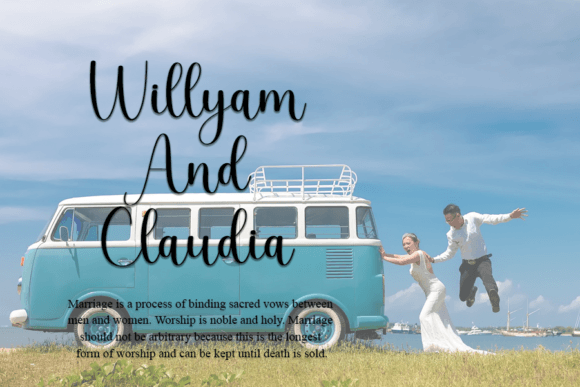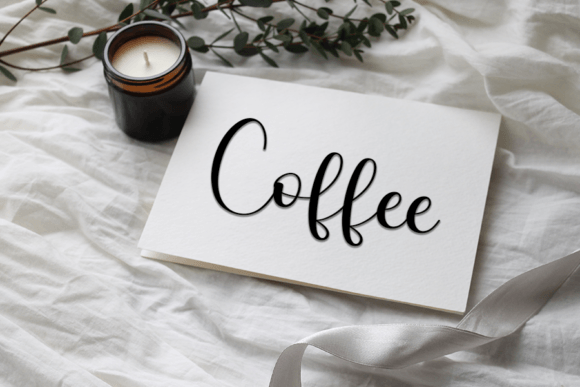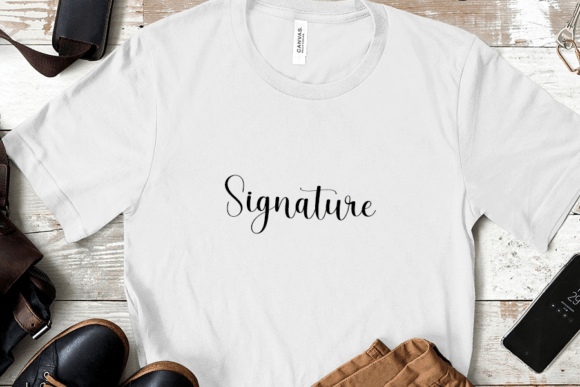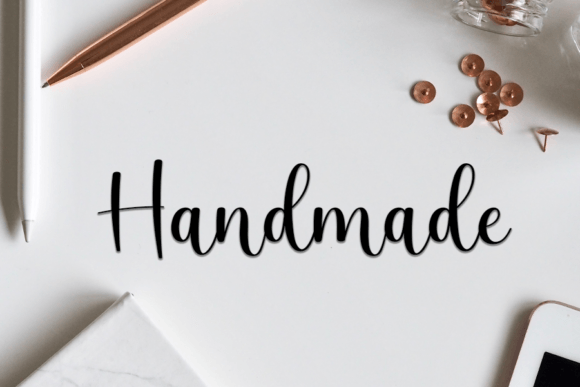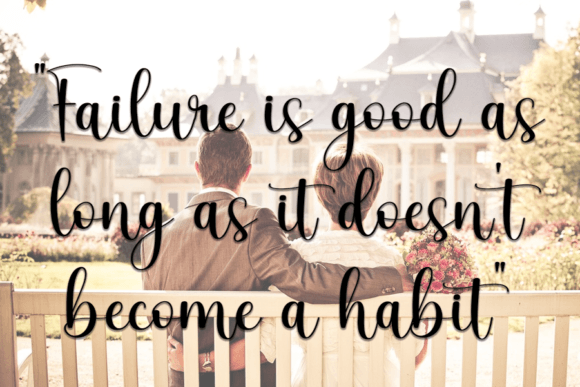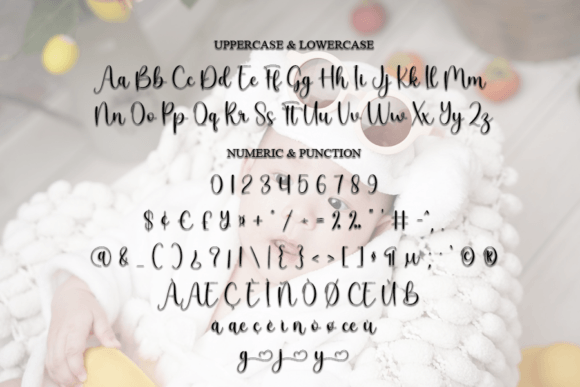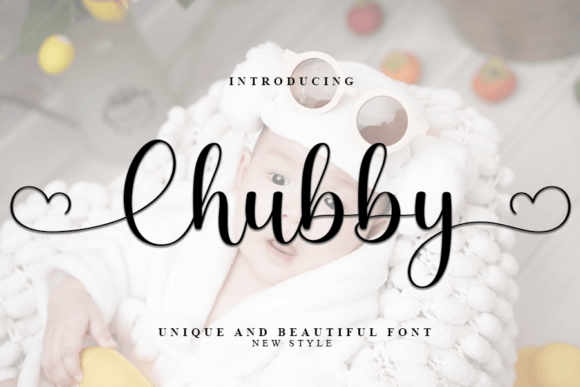
Introducing Chubby Font: The Perfect Handwritten Style for Unique Designs
Are you a designer or crafter looking for a font that adds a touch of personality to your work? Look no further than Chubby Font, a delicate handwritten font carefully crafted for a cool and unique design. With its distinctive charm, Chubby Font is perfect for creating eye-catching letters, invitations, food products, titles, and more.
What Makes Chubby Font Special?
Chubby Font is a one-of-a-kind handwritten font that boasts a delicate and elegant feel. Its carefully crafted letters are designed to add a touch of whimsy and playfulness to any design project. The font’s unique characteristics make it perfect for a wide range of applications, from formal invitations to casual social media posts.
Key Features of Chubby Font
• Delicate Handwritten Style: Chubby Font features a beautiful, hand-crafted design that adds a personal touch to any project.
• Unique Character Set: The font includes a wide range of characters, ensuring that you can create unique and eye-catching designs.
• Easy to Read: Despite its delicate nature, Chubby Font is surprisingly easy to read, making it perfect for body text and headings.
• Versatile: Chubby Font can be used for a wide range of projects, from formal events to casual social media posts.
Use Cases for Chubby Font
So, what can you use Chubby Font for? The possibilities are endless! Here are a few ideas to get you started:
• Invitations: Create beautiful, one-of-a-kind invitations for weddings, birthday parties, and other special events.
• Food Products: Add a touch of personality to your food product labels, packaging, and marketing materials.
• Social Media Posts: Use Chubby Font to create eye-catching social media posts that stand out from the crowd.
• Titles and Headings: Add a touch of elegance to your titles and headings with Chubby Font.
• Personal Letters: Write beautiful, handwritten-style letters to friends and family.
Tips for Using Chubby Font
To get the most out of Chubby Font, here are a few tips to keep in mind:
• Pair with Other Fonts: Experiment with pairing Chubby Font with other fonts to create a unique and eye-catching design.
• Use for Headings and Titles: Chubby Font is perfect for headings and titles, but can also be used for body text.
• Experiment with Colors: Try out different colors and textures to add depth and interest to your design.